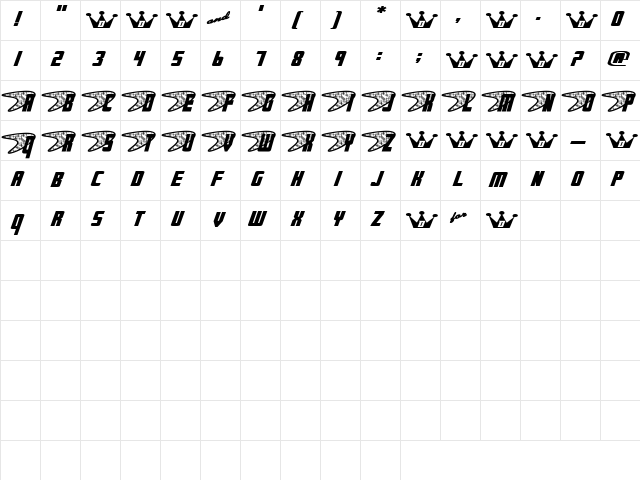
BachelorPad Regular
Design Context for BachelorPad Typeface
BachelorPad is a composed and adaptable typeface that performs quietly and consistently across a wide range of design contexts.